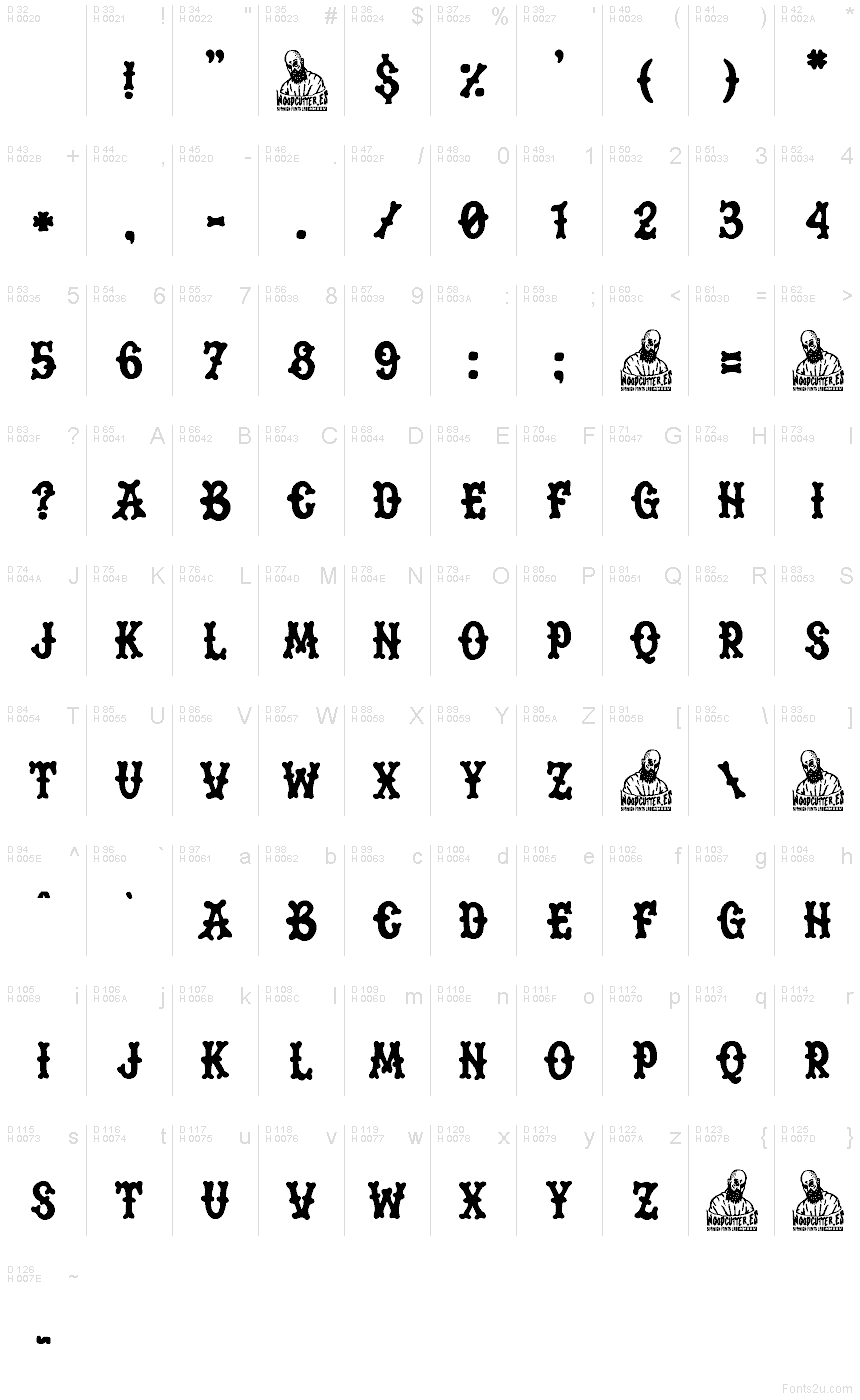
Pirate Biker
Pirate Biker font by Woodcutter is a free decorative display font. Built for swagger and spectacle, its chunky, bone-like strokes and bulbous joints feel like skull-and-crossbones carved in ink. Letters lock together with a pulpy weight that reads loud from a distance, giving headlines a rowdy, renegade grin without losing legibility.
Using Pirate Biker, you can fuel Halloween flyers, pirate-themed events, biker rally posters, rock album art, escape-room branding, rum or hot-sauce packaging, and tattoo-inspired merch. This free font shines when set big with a touch of extra tracking. Pair it with a plain, condensed sans for body copy to keep the message crisp while the display stays wild.